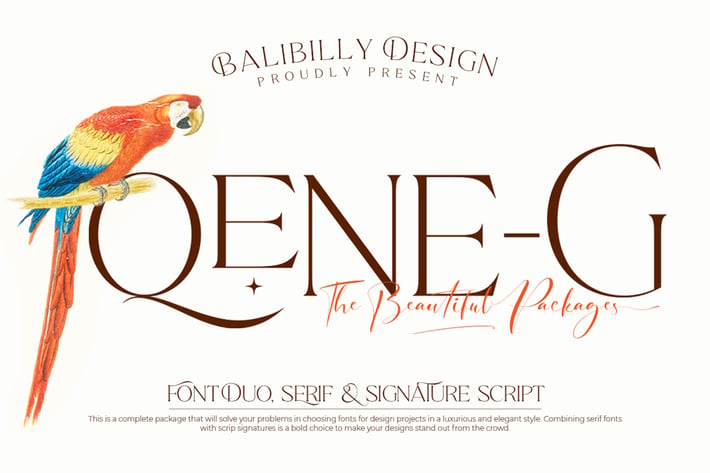
Qene-G - Serif & Signature Script Font Duo
Say hello to Qene-G Typeface.
Qene-G is inspired by a common challenge I face when designing: combining typefaces in typographic art. I’m sure you’ve encountered this problem as well, which is why the Qene-G Typeface was created to solve it.
Qene-G is a complete package of serif fonts and signature scripts. With its thoughtful design, this font adds a luxurious and elegant feel to your projects. Smooth curves, flowy terminals, and flirty tails ensure your work stands out with a unique charm. The handmade signature script highlights the natural beauty and style you bring to your creations.
The Qene-G family consists of five styles: Qene-G-Regular, Qene-G-Regular Italic, Qene-G-Outline, Qene-G-Outline Italic, and Qene-G-Script. You’ll get all-caps letters with two variations, accessible through uppercase and lowercase, as well as charming script fonts packed with ligatures and stylistic alternates. It’s complete with Unicode and PUA encoding, so you can access all features without needing graphic design software. Your projects will reach a global audience, with support for 131 languages.
Qene-G is a strikingly versatile font, making it a bold choice for branding projects, fashion magazines, social media text overlays, posters, website headers, and more. Start creating standout designs with this font today!